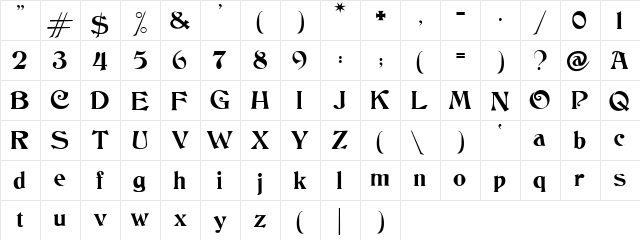
Beaumarchais Regular
Design Context for Beaumarchais Typeface
Beaumarchais is a composed and adaptable typeface that performs quietly and consistently across a wide range of design contexts.
Pro Tip: Pair Beaumarchais with a font of contrasting weight or personality to build a more expressive typographic hierarchy.